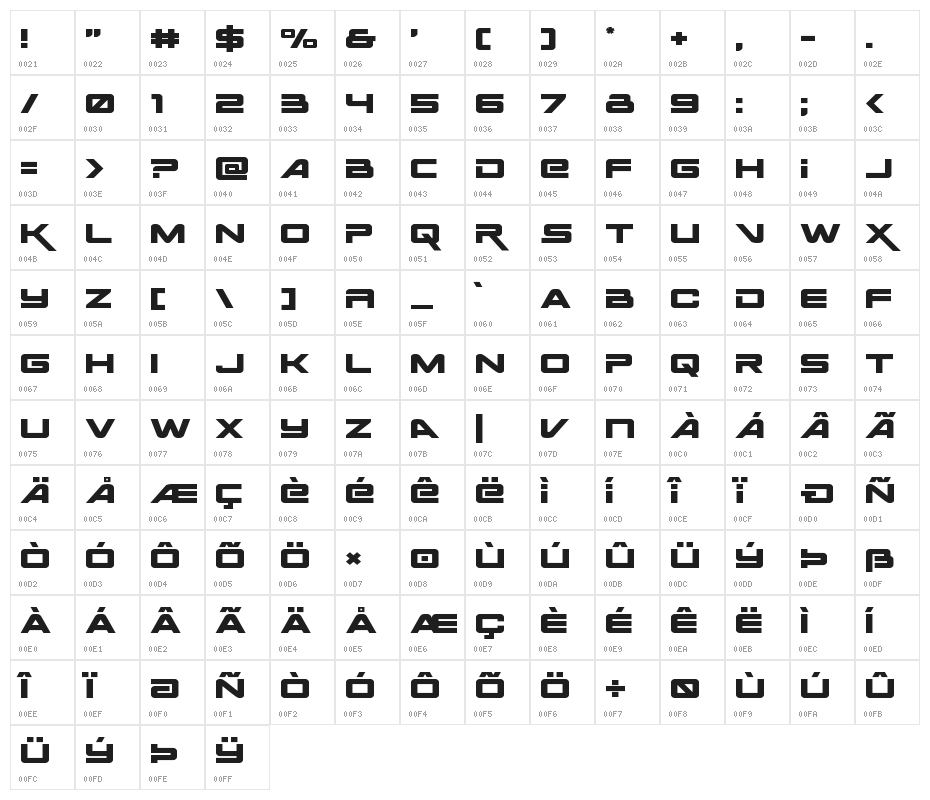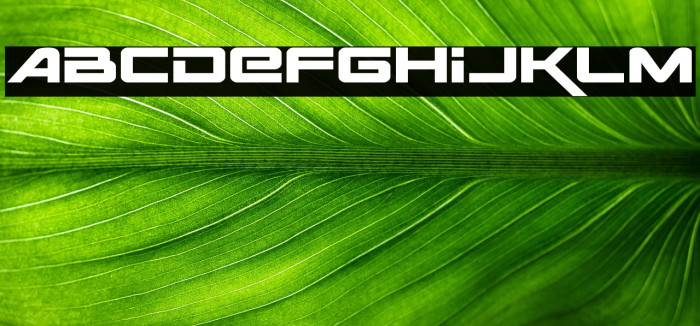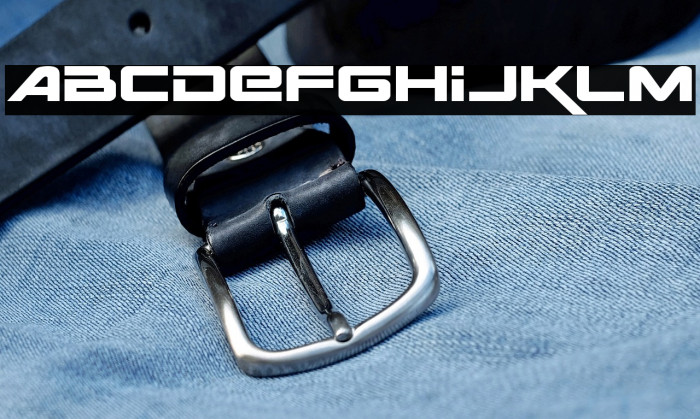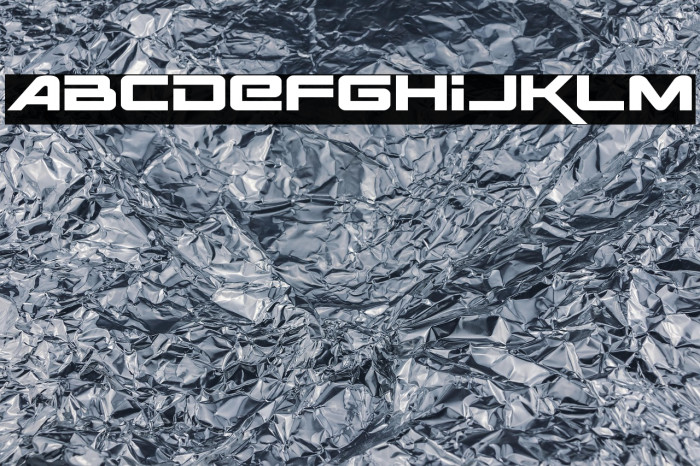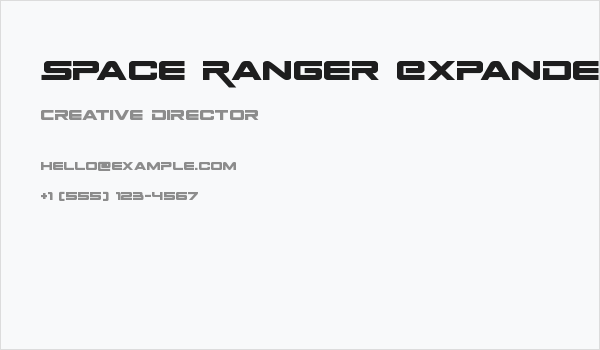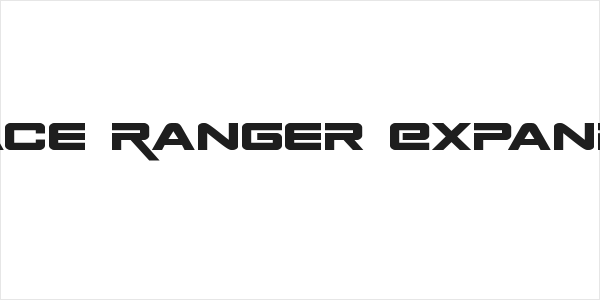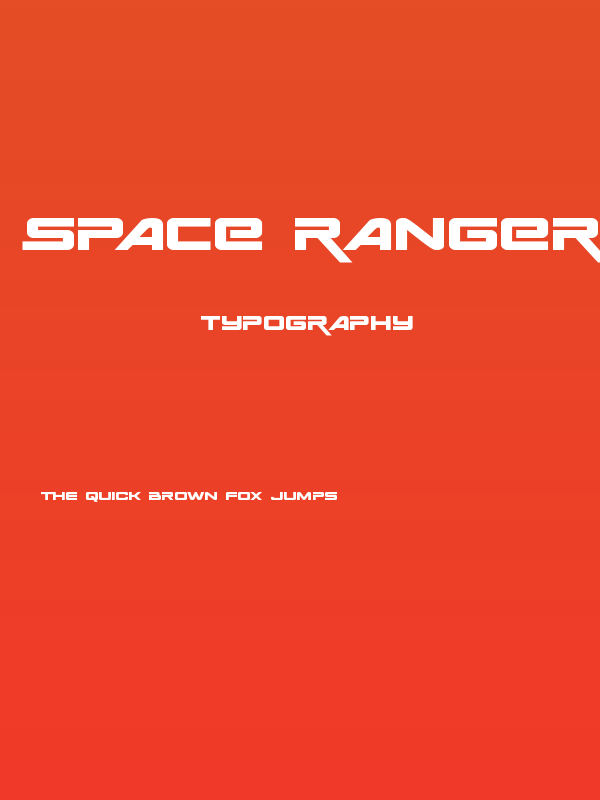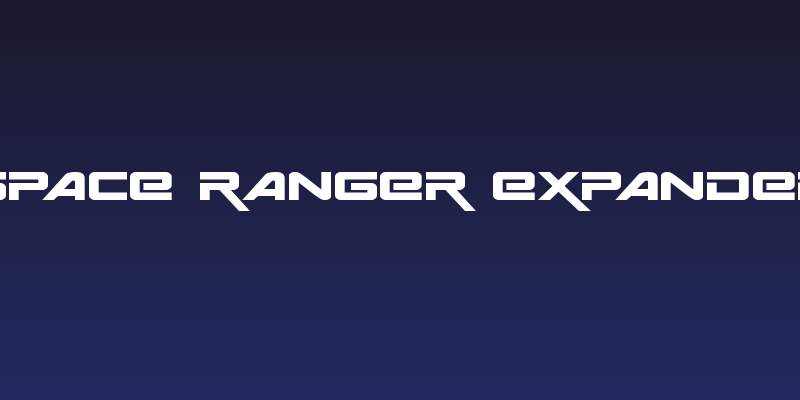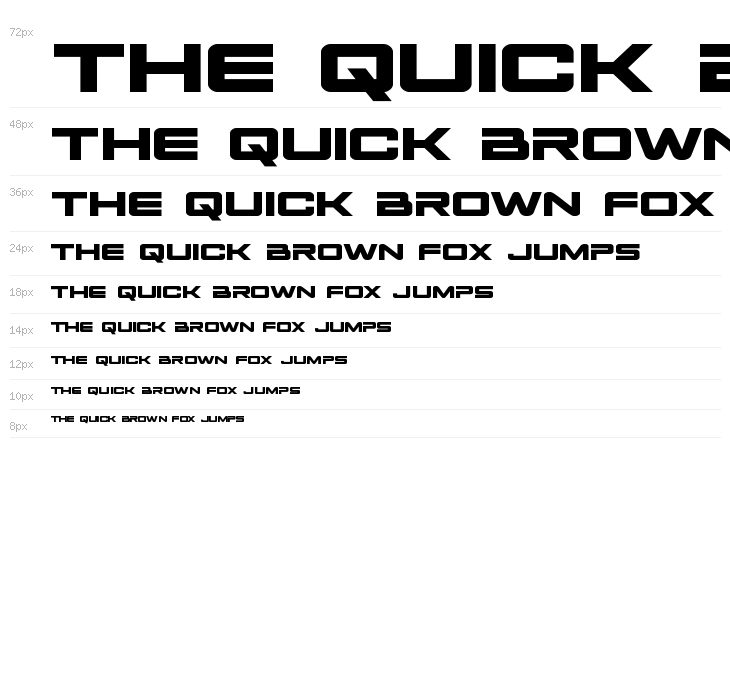
Space Ranger Expanded Font
Space Ranger Expanded Description
This font features a futuristic and bold design with sharp, angular edges and a geometric structure. The uppercase letters are distinct with a strong presence, making them ideal for attention-grabbing headlines. The lowercase letters maintain the same angular style, ensuring consistency across text. Numbers are equally bold and geometric, providing a cohesive look. Special characters are designed to match the overall aesthetic, with a modern and sleek appearance. The font's expanded width gives it a commanding presence, suitable for impactful designs.
| Width | Expanded |
| Overall Style | Futuristic |
| Proposed Projects | Ideal for sci-fi themed projects, technology branding, video game titles, and futuristic posters. |